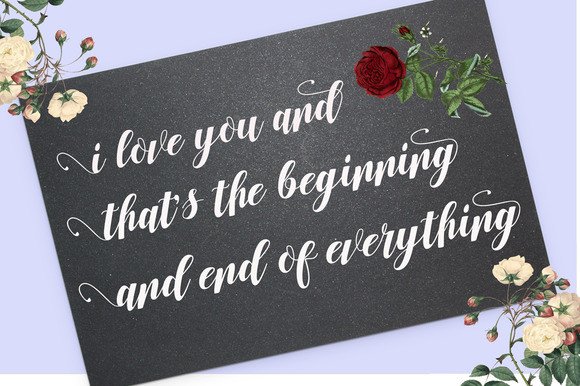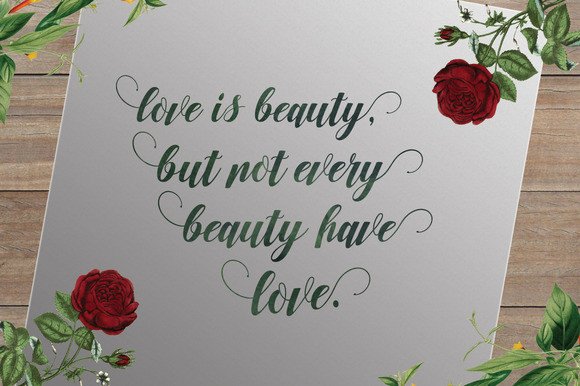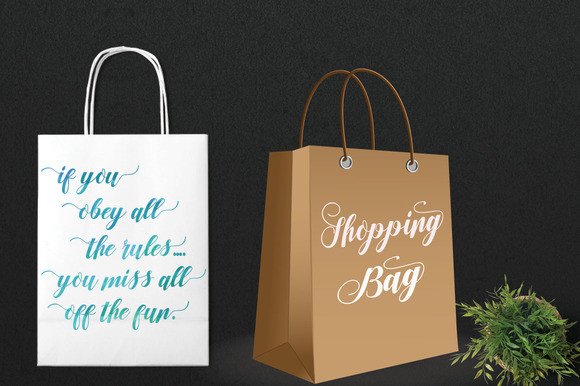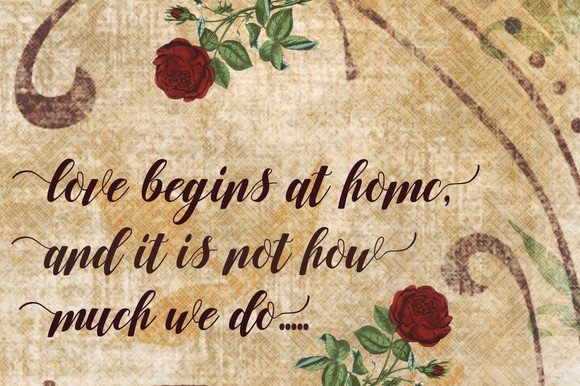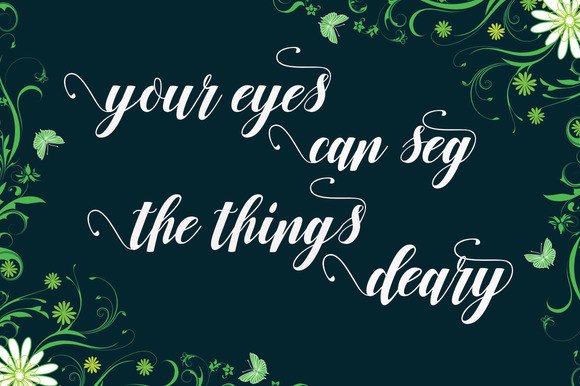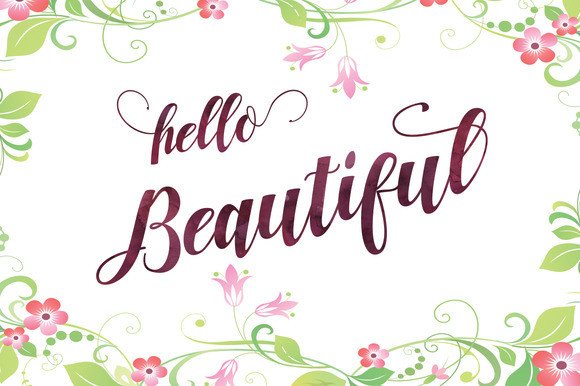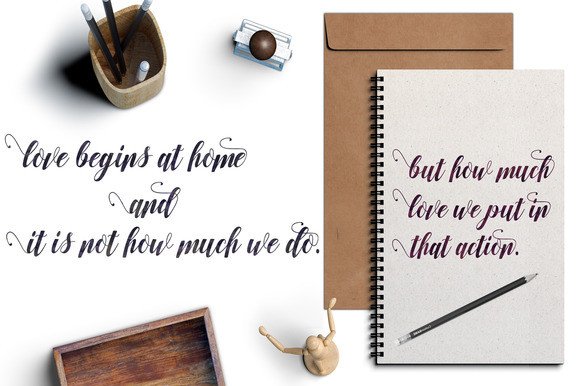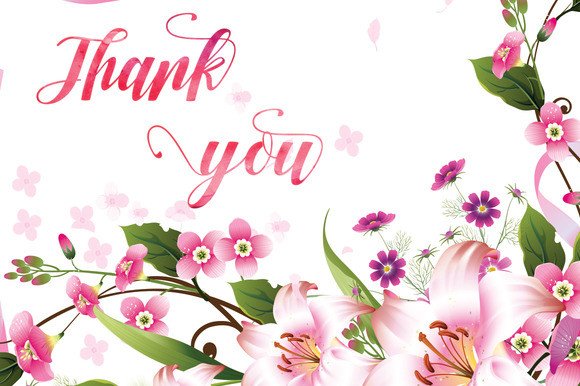
Nurrillia Font
About Nurrillia Font
Nurrillia is a unique font created with dancing moves in mind.
Can be used for various purposes. Such as headings, logos, wedding invitations, t-shirts, letterheads, signage, labels, news, posters, badges, and much more.